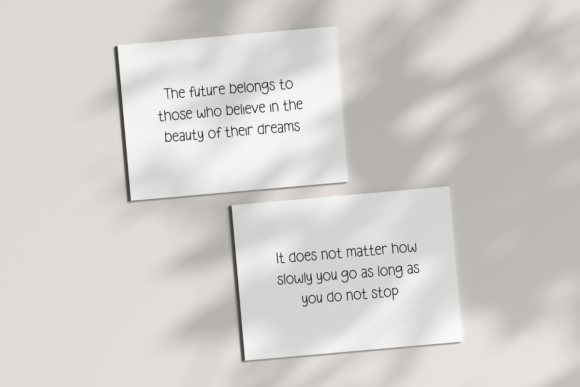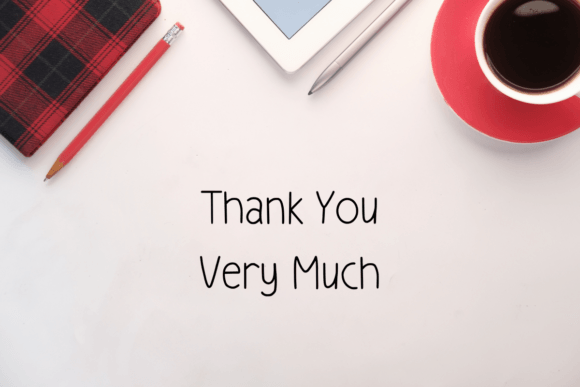
Introducing Card Year Font: The Playful Sans-Serif for Modern Designs
Are you tired of using the same old fonts in your designs? Look no further than Card Year Font, a playful sans-serif that’s sure to add a touch of fun to any project. With its clean, smooth lines, Card Year is perfect for titles, posters, and any design that needs a lively, modern look.
What is Card Year Font?
Card Year Font is a modern sans-serif font that’s designed to be easy to read and visually appealing. Its clean lines and simple shapes make it perfect for a wide range of design projects, from digital graphics to print materials. Whether you’re a designer, crafter, or DIY enthusiast, Card Year Font is a great addition to your font collection.
Key Features of Card Year Font
- Playful and Fun: Card Year Font has a playful, energetic vibe that’s perfect for designs that need a bit of personality.
- Easy to Read: The font’s clean lines and simple shapes make it easy to read, even at small sizes.
- Modern Look: Card Year Font has a modern, contemporary look that’s perfect for designs that need a fresh, updated feel.
- Versatile: The font is versatile and can be used for a wide range of design projects, from titles and posters to digital graphics and print materials.
Uses for Card Year Font
Card Year Font is perfect for a wide range of design projects, including:
- Titles and Headlines: The font’s playful, energetic vibe makes it perfect for titles and headlines that need to grab attention.
- Posters and Flyers: Card Year Font is a great choice for posters and flyers that need a modern, eye-catching look.
- Digital Graphics: The font is perfect for digital graphics, such as social media graphics, blog posts, and website headers.
- Print Materials: Card Year Font can be used for a wide range of print materials, including brochures, business cards, and invitations.
Why Choose Card Year Font?
There are many fonts to choose from, but Card Year Font stands out for several reasons:
- Unique and Playful: Card Year Font has a unique, playful vibe that’s hard to find in other fonts.
- High-Quality: The font is high-quality and designed to look great in any design project.
Tips for Using Card Year Font
Here are a few tips for using Card Year Font in your design projects:
- Use it as a Title Font: Card Year Font is perfect for titles and headlines, so use it to add a touch of fun and personality to your designs.
- Pair it with Other Fonts: The font pairs well with other fonts, so don’t be afraid to experiment with different combinations.
- Use it in Digital Graphics: Card Year Font is perfect for digital graphics, such as social media graphics and blog posts.
- Experiment with Colors: The font looks great in a wide range of colors, so experiment with different colors to find the perfect look for your design.
Card Year Font is a playful sans-serif font that’s perfect for designers and crafters who want to add a touch of fun to their designs. With its clean, smooth lines and modern look, Card Year Font is versatile and can be used for a wide range of design projects. Whether you’re creating titles, posters, or digital graphics, Card Year Font is a great choice. So why not give it a try and see how it can elevate your designs?